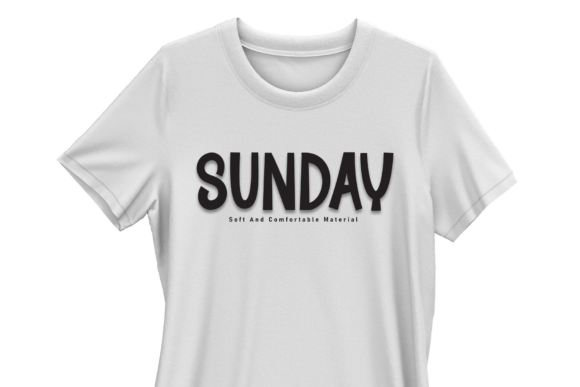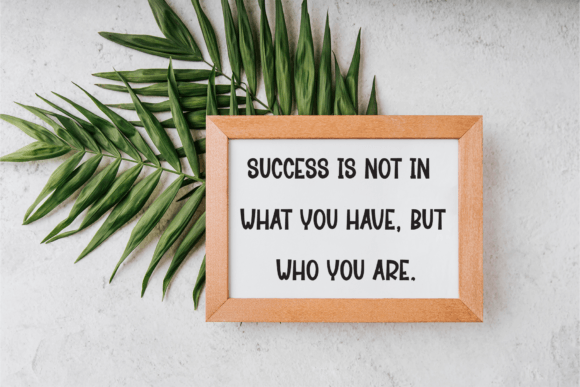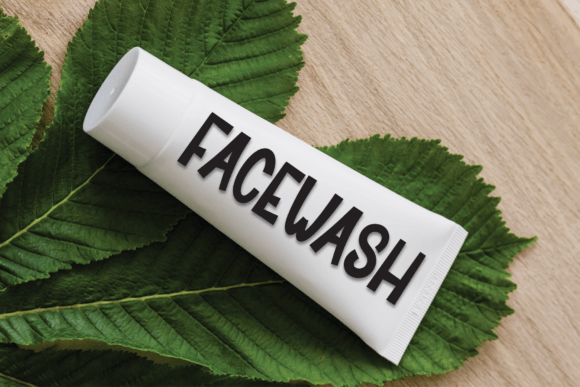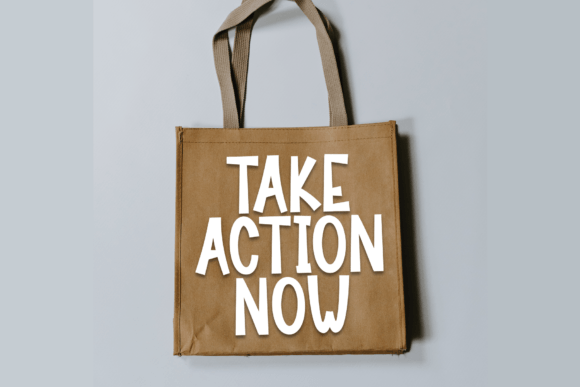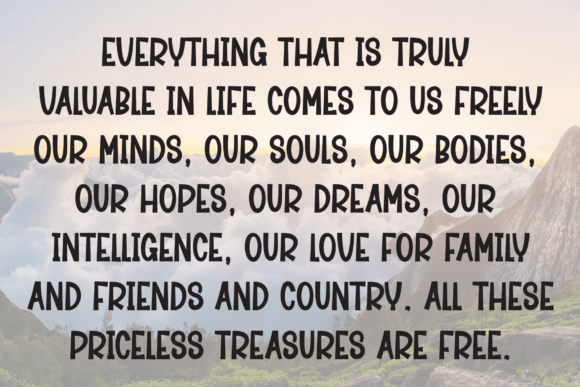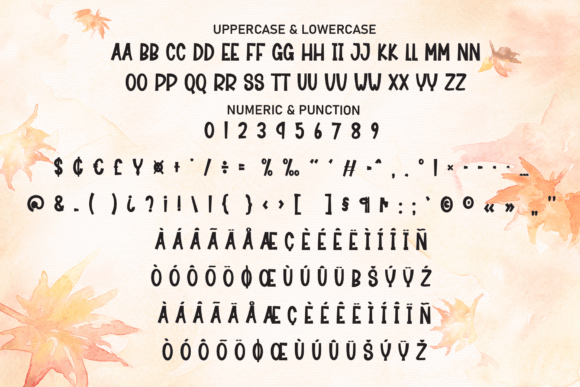
Welcome the Cozy Season with Hello Autumn Font
As the leaves begin to change and the air grows crisp, designers and crafters are on the lookout for the perfect typography to capture the essence of autumn. Look no further than the Hello Autumn font, a playful display font that embodies the warm, cozy vibes of the season. With its friendly letters and inviting curves, this font is sure to add a touch of whimsy and warmth to any text.
The Inspiration Behind Hello Autumn Font
Hello Autumn font is inspired by the sights, smells, and feelings of fall. The designers aimed to create a font that would evoke the sense of nostalgia and coziness that comes with the season. From the rustling of leaves to the warmth of pumpkin spice, every detail of the font is designed to transport you to a crisp autumn day. Whether you’re working on invitations, seasonal projects, or cheerful designs, Hello Autumn font is the perfect choice.
Key Features of Hello Autumn Font
- Playful Display Font: Hello Autumn font is a playful display font that is perfect for headlines, titles, and short text.
- Warm Curves: The font features warm, inviting curves that give it a friendly and approachable feel.
- Autumn-Inspired: From the color palette to the letterforms, every detail of the font is inspired by the season of fall.
- Multipurpose: Hello Autumn font can be used for a variety of projects, including invitations, seasonal crafts, and cheerful designs.
Uses for Hello Autumn Font
Hello Autumn font is a versatile font that can be used for a wide range of projects. Here are a few ideas to get you started:
- Invitations: Use Hello Autumn font to create warm and inviting invitations for fall parties, harvest festivals, and Thanksgiving gatherings.
- Seasonal Crafts: Add a touch of autumn charm to your seasonal crafts, such as leaf rubbings, pinecone bird feeders, and paper bag lanterns.
- Cheerful Designs: Use Hello Autumn font to create cheerful designs for social media, blogs, and websites.
- Packaging: Add a personal touch to your fall-themed packaging with Hello Autumn font.
Tips for Using Hello Autumn Font
To get the most out of Hello Autumn font, here are a few tips to keep in mind:
- Use it sparingly: Hello Autumn font is a display font, so use it sparingly to add emphasis and visual interest to your text.
- Pair it with complementary fonts: Pair Hello Autumn font with complementary fonts, such as serif or script fonts, to create visual interest and hierarchy.
- Experiment with colors: Try out different color combinations to find the perfect match for your Hello Autumn font.
Hello Autumn font is a playful and charming font that is perfect for designers and crafters looking to add a touch of autumn whimsy to their projects. With its warm curves, friendly letters, and autumn-inspired design, this font is sure to capture the essence of the season. Whether you’re working on invitations, seasonal crafts, or cheerful designs, Hello Autumn font is the perfect choice. So why wait? Download Hello Autumn font today and start creating your own autumn-inspired masterpieces!